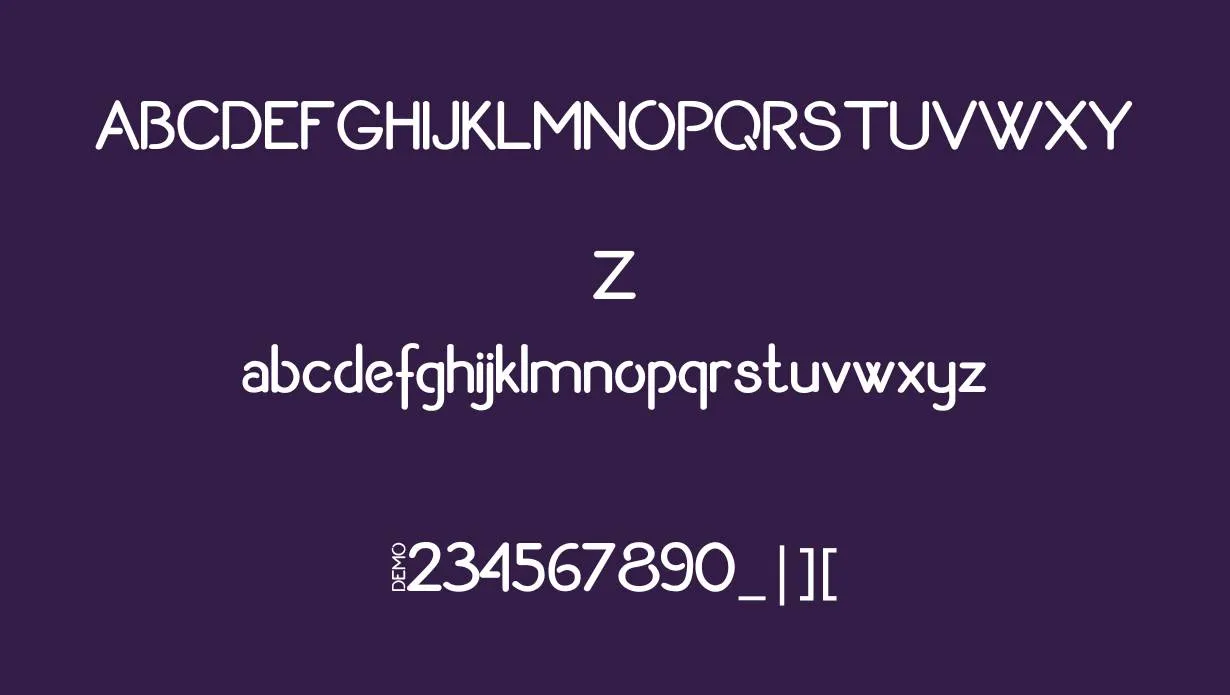
Babet Font offers a playful and imaginative design, frequently used in creative branding, children’s books, and projects where designers want to create a sense of fun and creativity.
The font’s whimsical and unique letterforms add a touch of charm and whimsy to your designs. Achieve the desired audience response by pairing the Welcome December Font with this font family to maximize the effectiveness of your communication.
| Name | Babet Font |
| Designer | Murathan Biliktü |
Babet Font Family